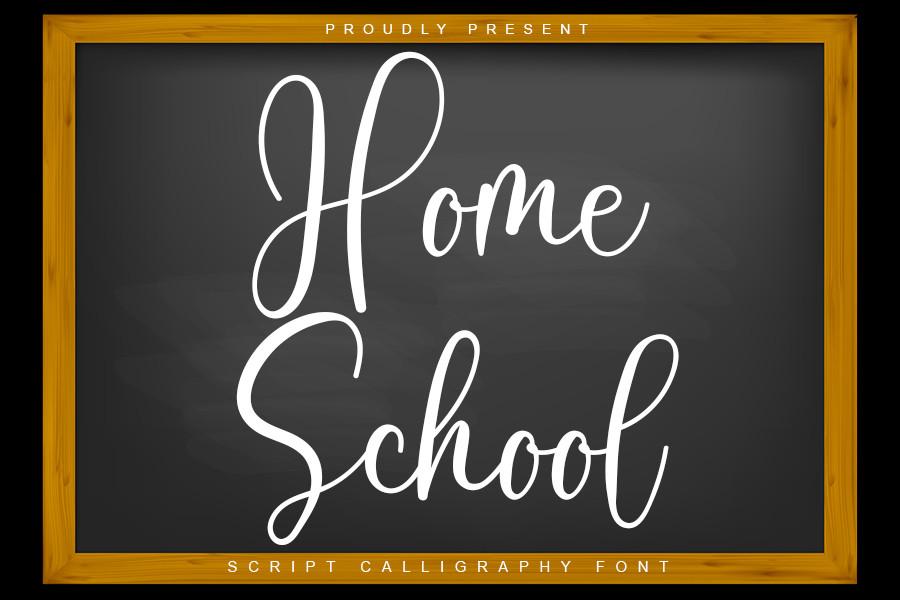
Homeschool Font Description
Homeschool is a handwritten font that feels equally charming and elegant. It looks stunning on wedding invitations, thank you cards, quotes, greeting cards, logos, business cards, and any other design that requires a handwritten touch. In addition, by using this font, your design will look more attractive than others and make you even more excited.